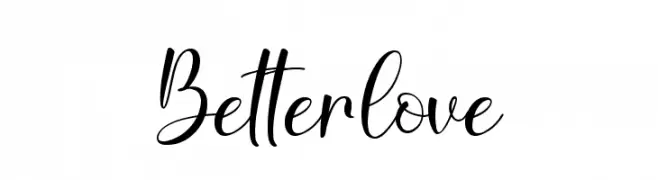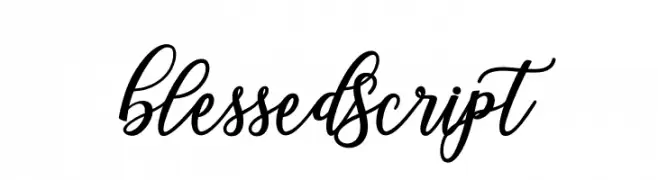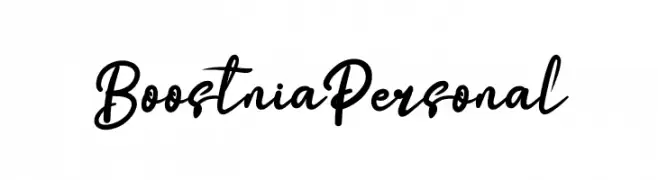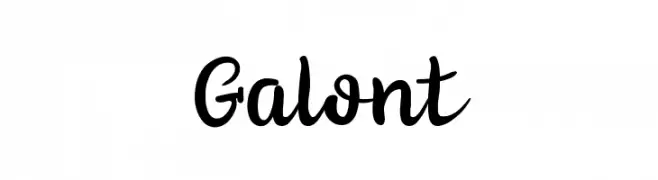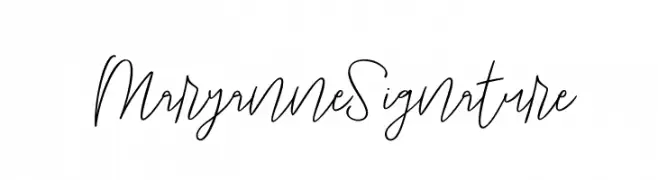
A playful, handwritten script font with bold, rounded characters.
A cursive, elegant script font with a flowing, handwritten style.
A graceful and flowing script font with elegant curves.
A modern, cursive font with a flowing, handwritten style.
A graceful script font with fluid, cursive strokes and elegant connections.
A cursive, elegant font with a calligraphic style and smooth, connected characters.
A fluid and elegant handwritten font with artistic loops and curves.
An elegant, flowing script font with graceful curves and sophisticated style.
A charming, playful script font with elegant, flowing letterforms.
A flowing, elegant script font with a modern, handwritten feel.